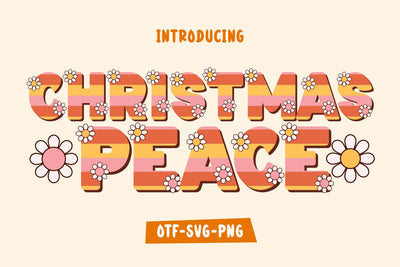
Christmas Peace - Color Decorative Font
Christmas Peace is a beautiful bold and fun color font. font with a retro Christmas theme. and is suitable for shirts, crafts, and cards and will instantly enhance your projects!